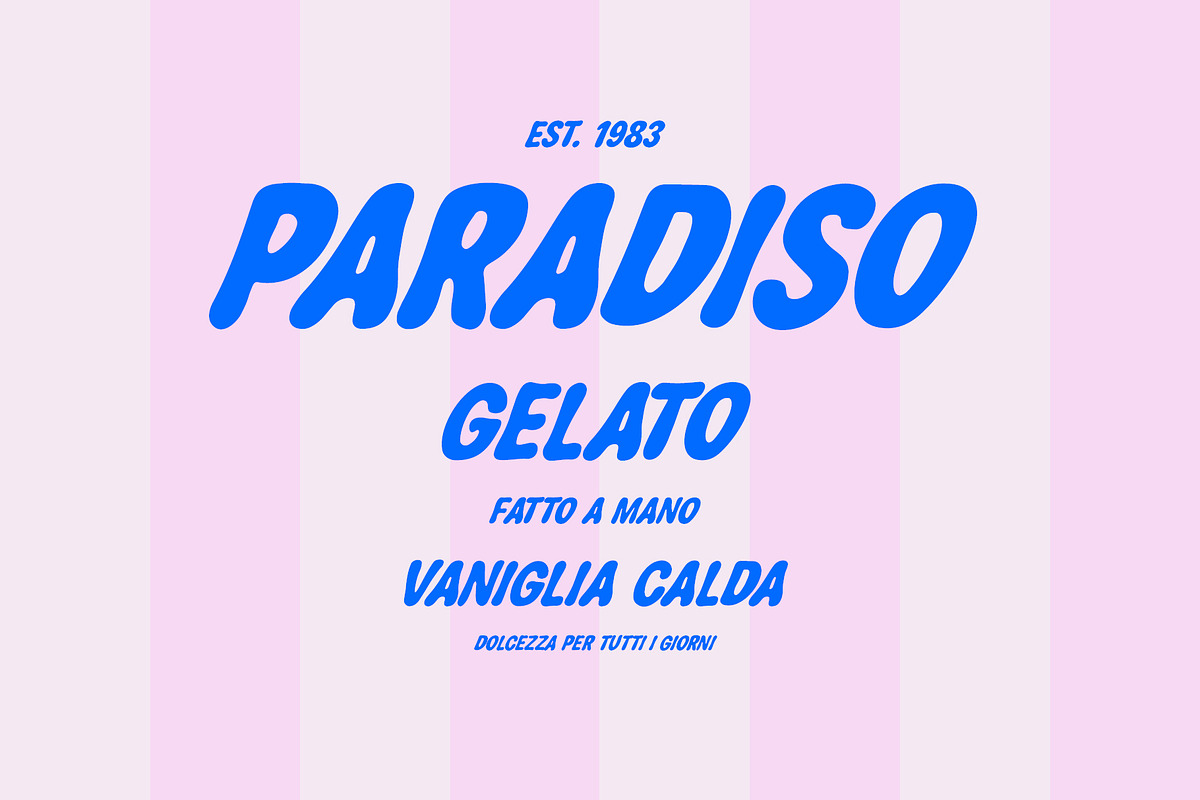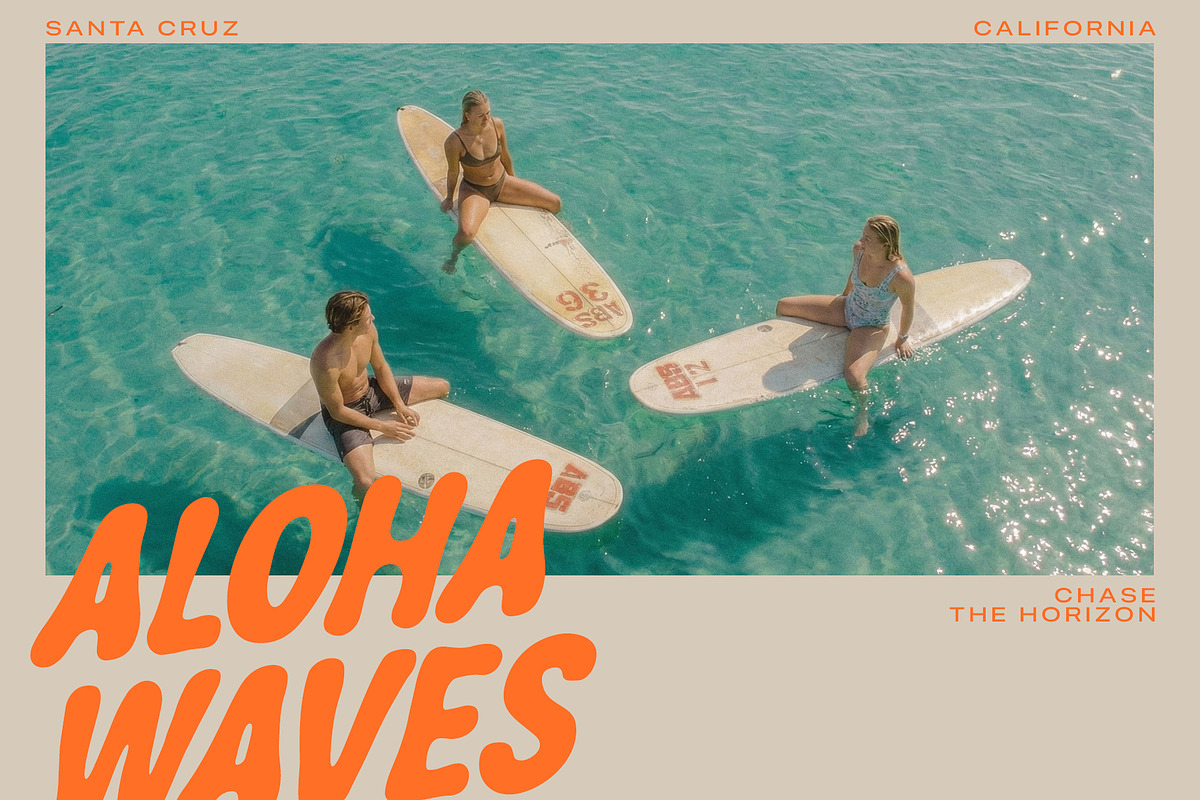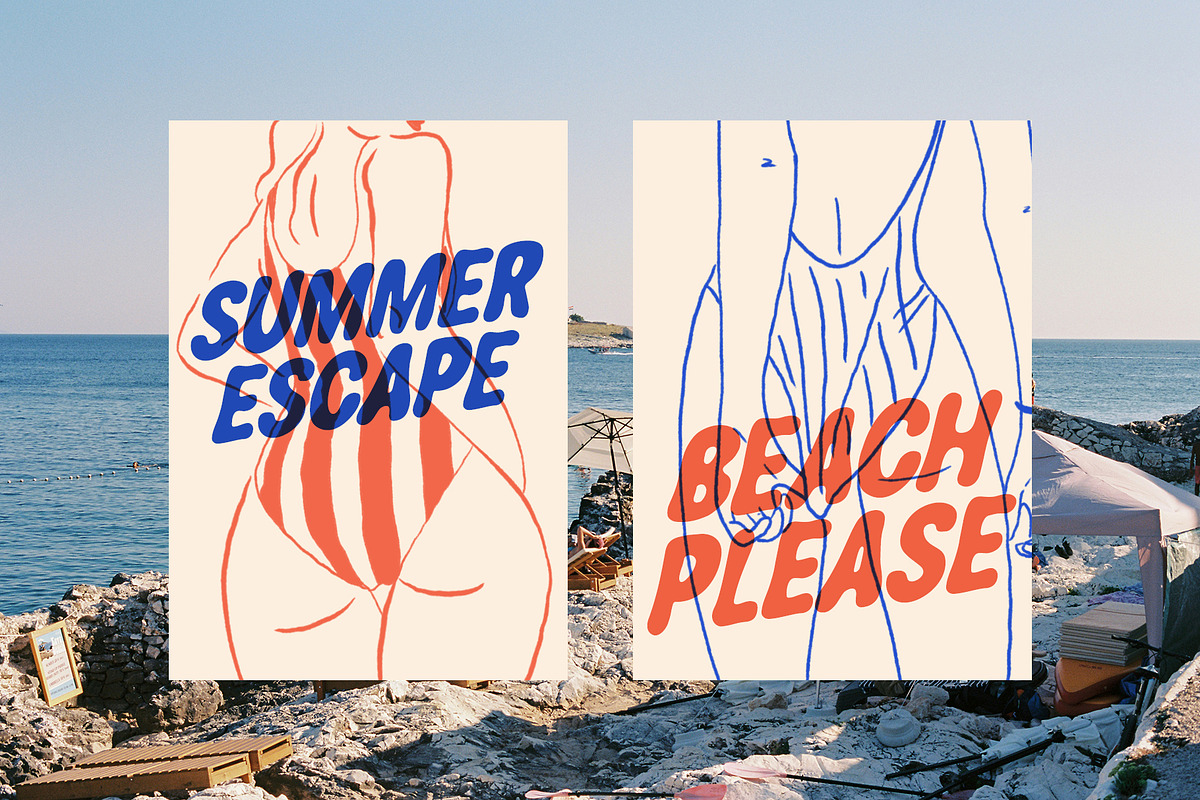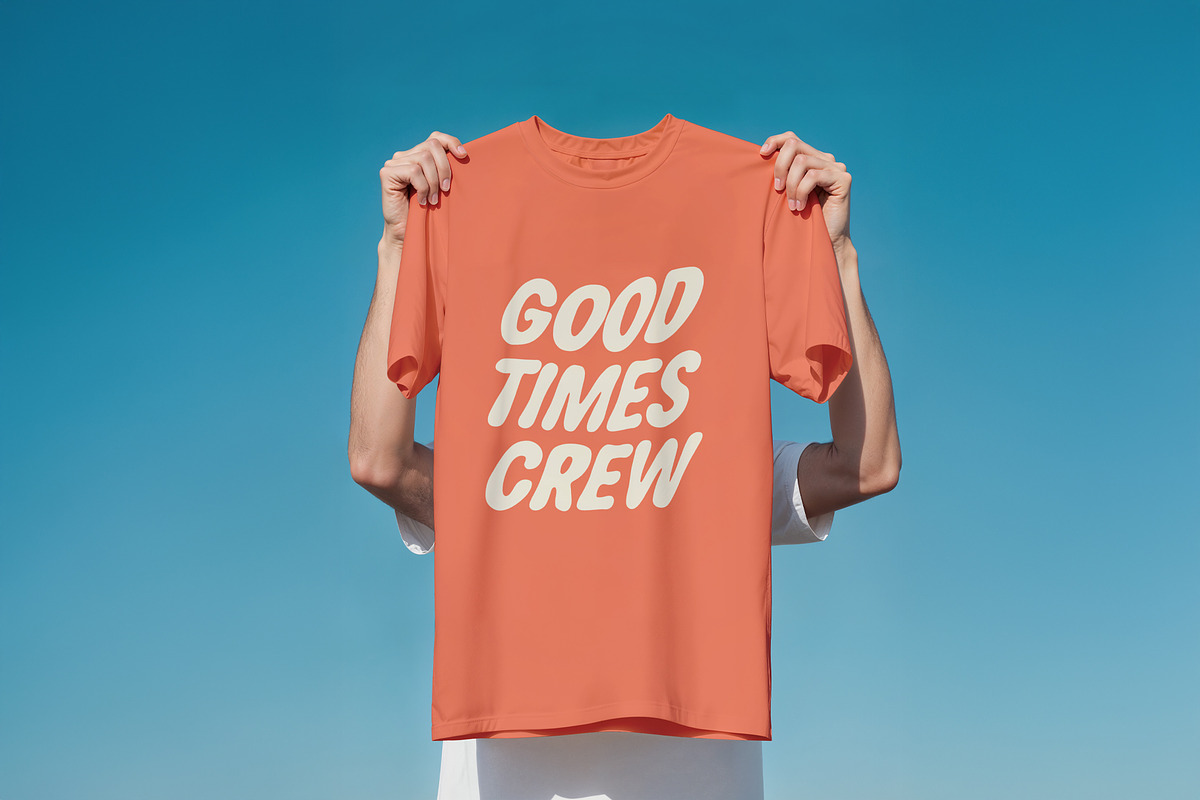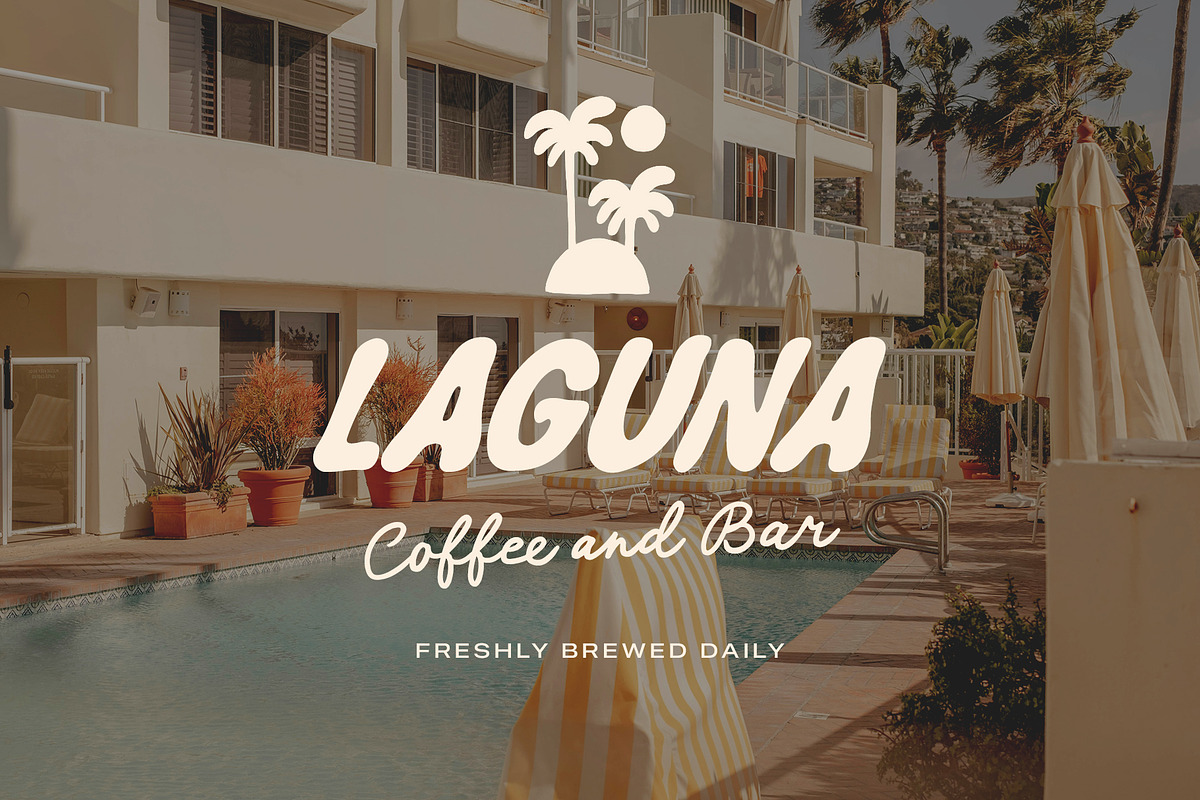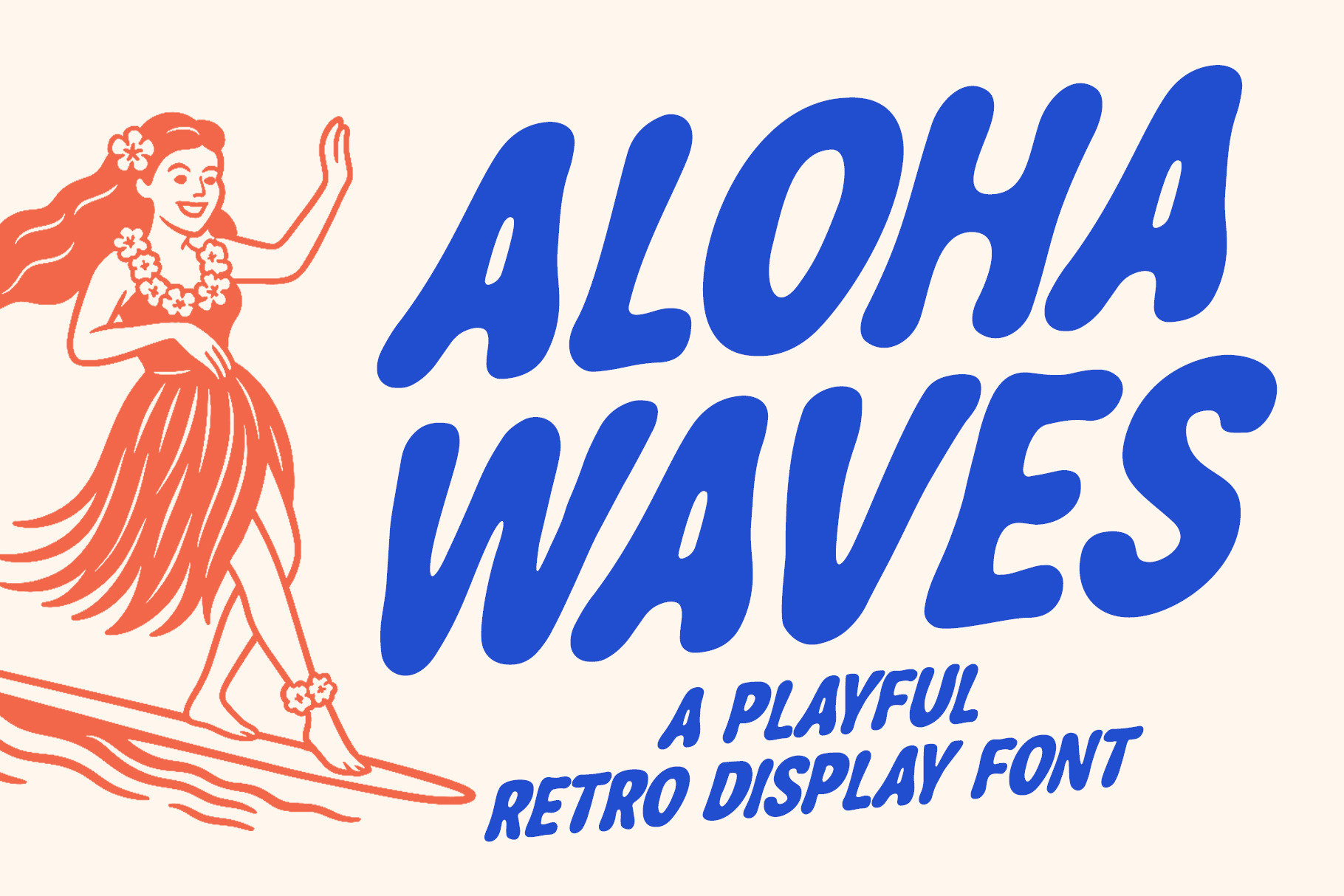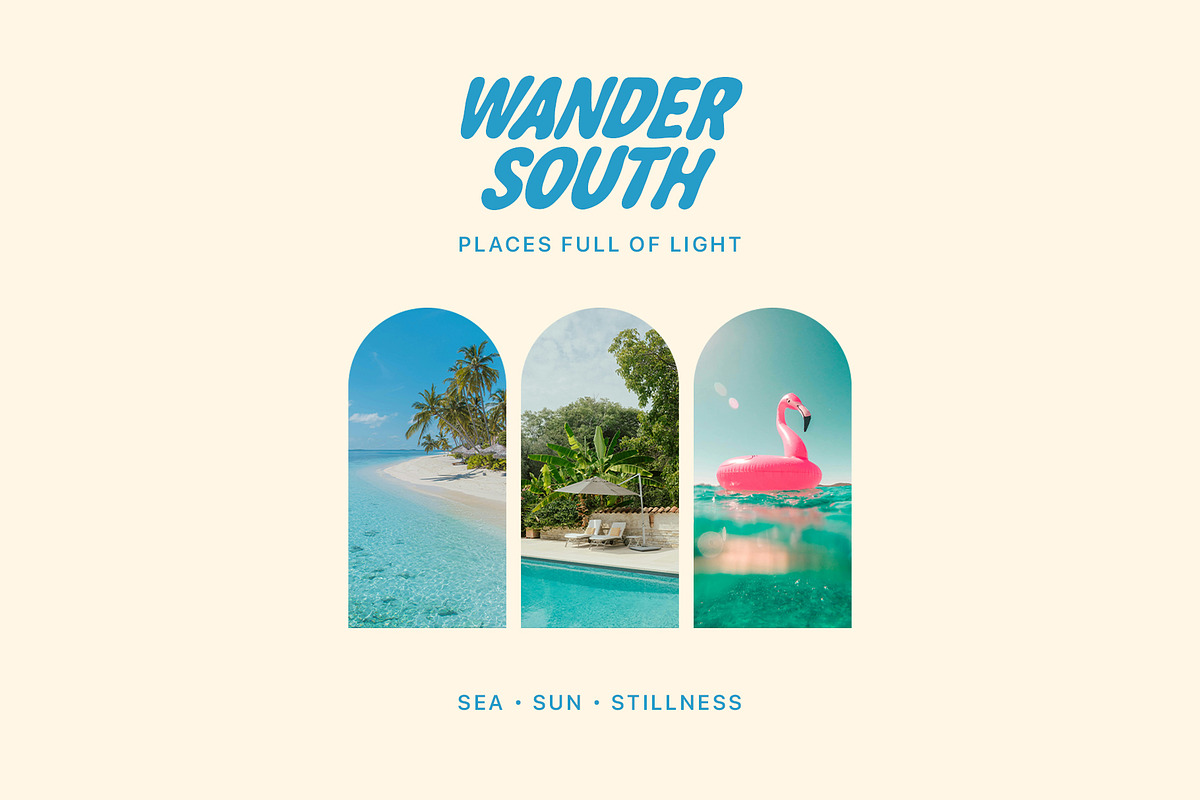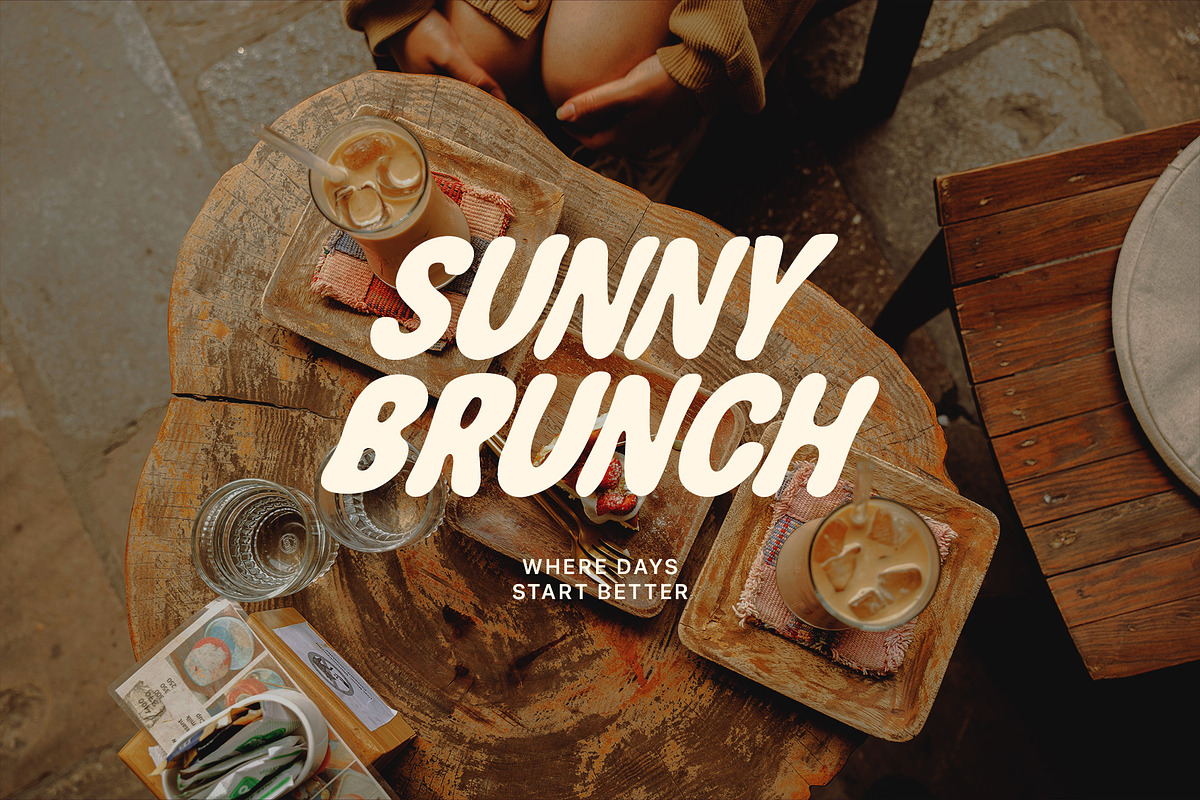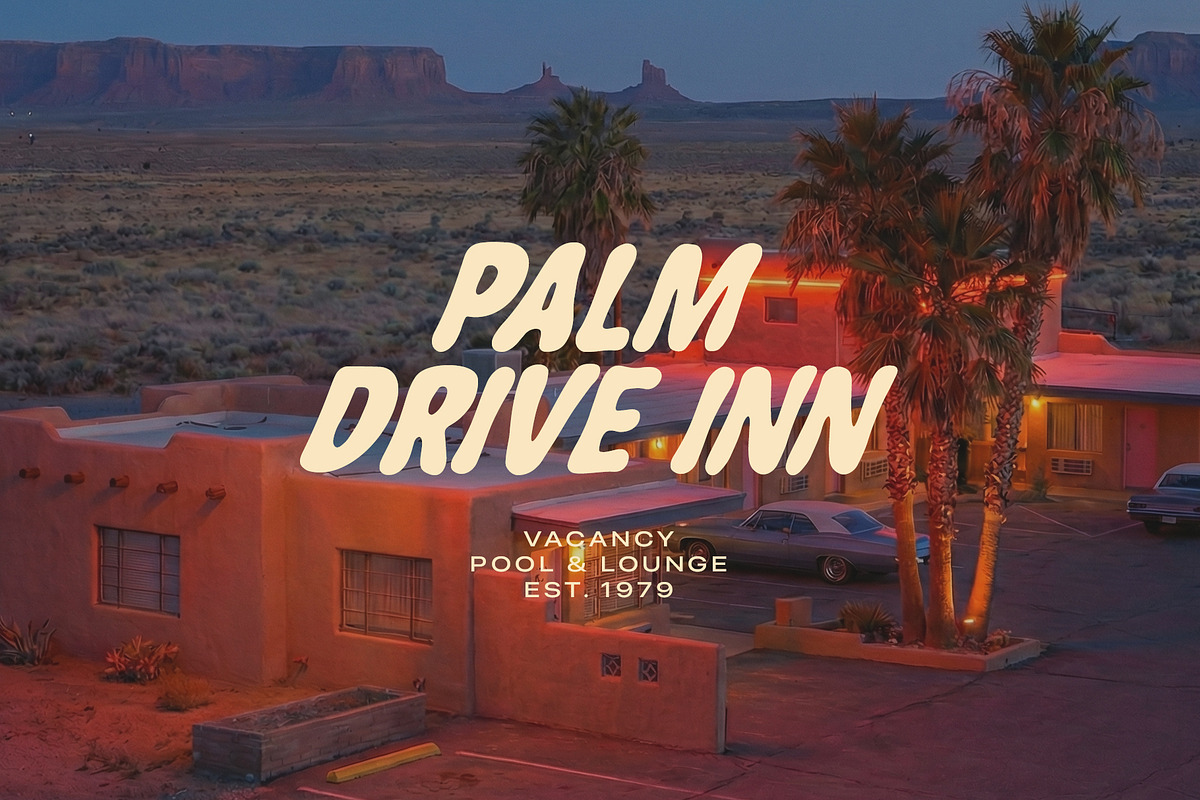
ALOHA WAVES Playful Retro Font
Aloha Waves is a sunny, carefree retro font inspired by vintage beach culture and warm summer nostalgia.
Its smooth rounded forms and hand-drawn character make it perfect for bold, expressive designs that need personality, charm, and a touch of sunshine.
Whether you're working on branding, posters, travel visuals, apparel, packaging, or social content. Aloha Waves brings instant summer vibes to any project.
- Smooth retro curves & playful shapes
- Perfect for both headlines and branding